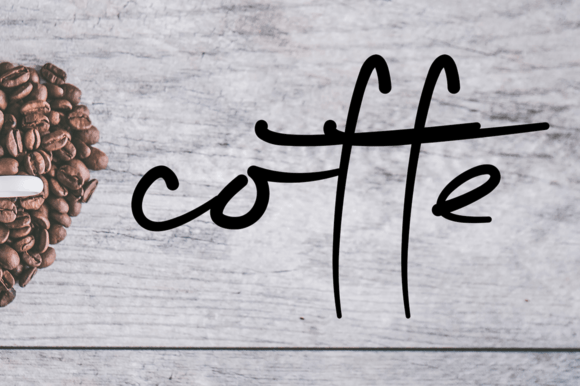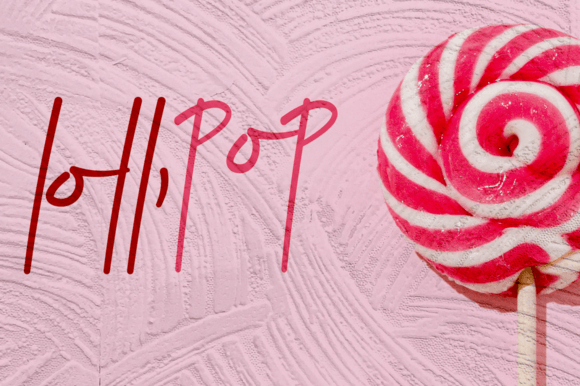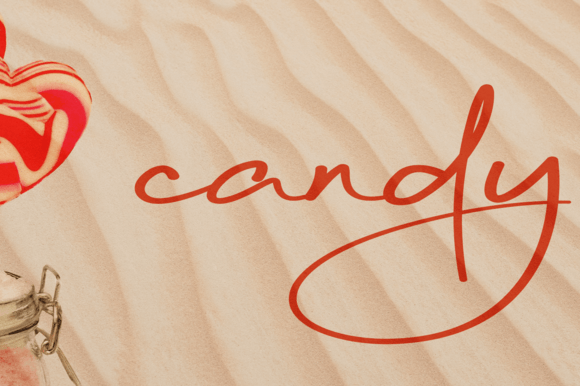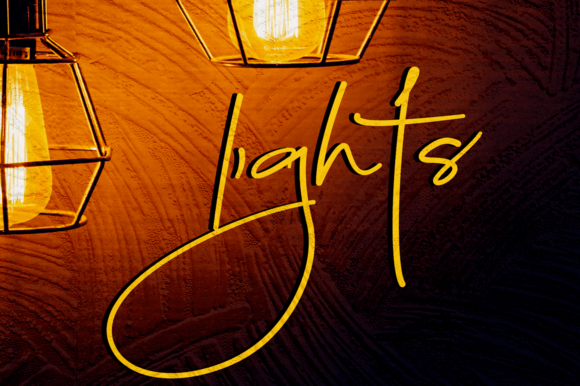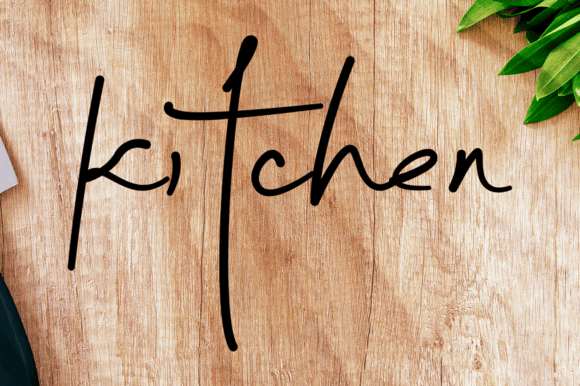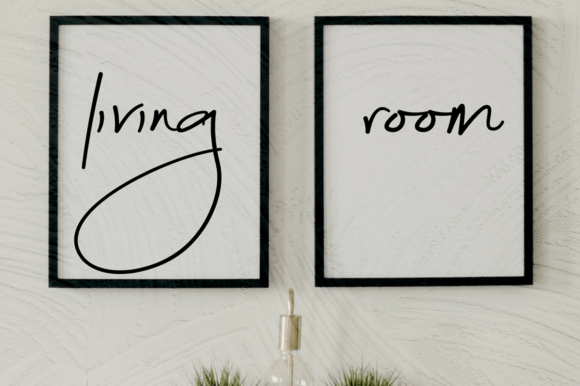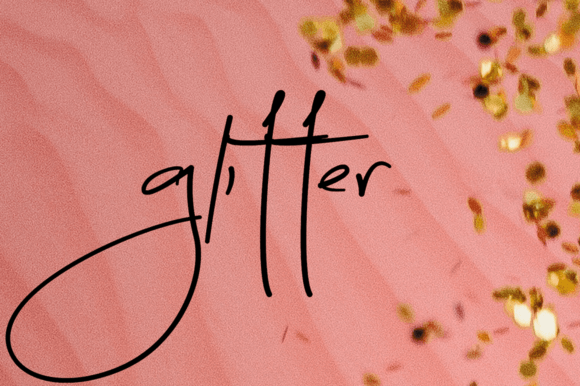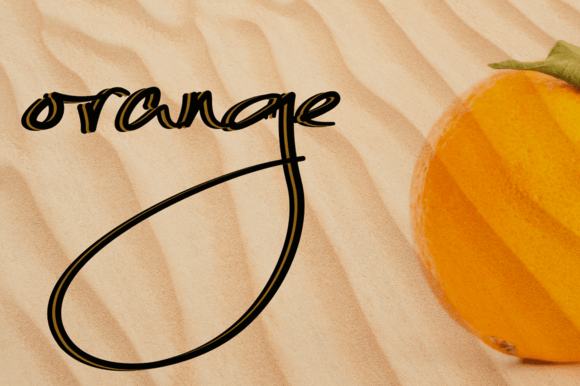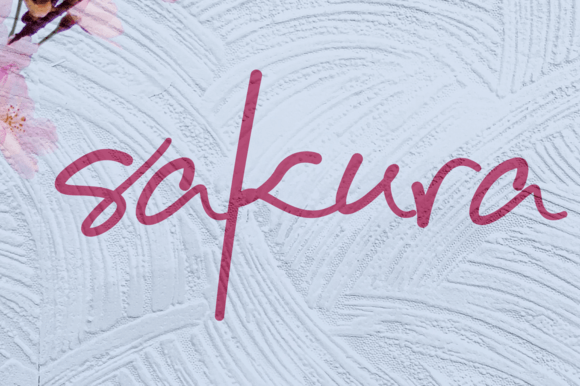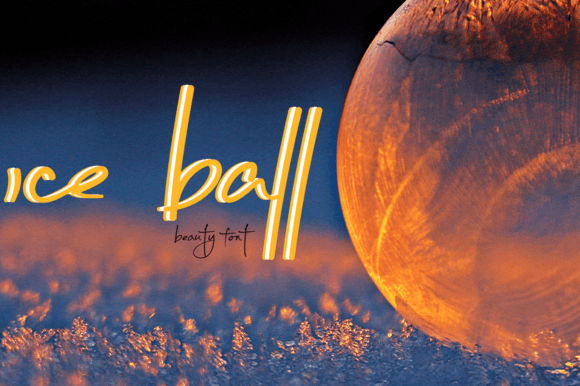
Coffe Font
About Coffe Font
“Coffe is a font that embodies elegance, simplicity, and charm. Its graceful, handwritten style adds a touch of sophistication to any creative project. When incorporated into your designs, Coffe breathes life into your most creative ideas, making them truly captivating.
What sets Coffe apart is its timeless elegance. The font’s refined strokes and effortless flow create a sense of sophistication, making it perfect for a wide range of applications. Whether you’re designing wedding invitations, branding materials, social media graphics, or any other creative endeavor, Coffe enhances the visual appeal of your projects with its understated charm.
Coffe’s simplicity is its strength. The clean and attractive characters make it easy to read and visually pleasing. This makes Coffe a versatile choice for various design contexts, ensuring that your message is conveyed clearly and effectively. Whether you’re using it for headlines, body text, or accents, Coffe adds a touch of class that elevates the overall design.
Incorporating Coffe into your creative ideas is like adding a dash of sophistication and allure. Its elegant, simple, and attractive handwriting effortlessly captures attention and creates a memorable visual experience. Whether you’re designing minimalist logos, elegant wedding stationery, or stylish packaging, Coffe enhances the overall aesthetic, leaving a lasting impression on your audience.
Coffe is more than just a font; it’s a versatile tool that empowers your creativity. Its elegant and attractive handwriting style makes it suitable for a wide range of projects, allowing you to explore different design concepts and bring your ideas to life. Embrace the charm of Coffe and let it transform your creative endeavors into captivating works of art.”